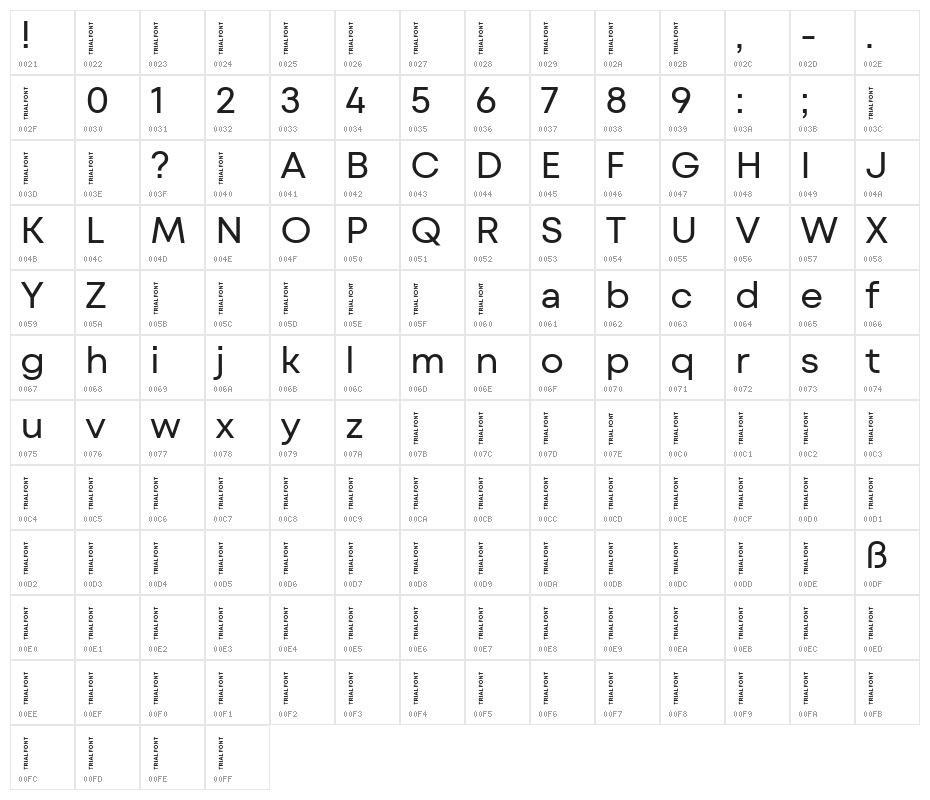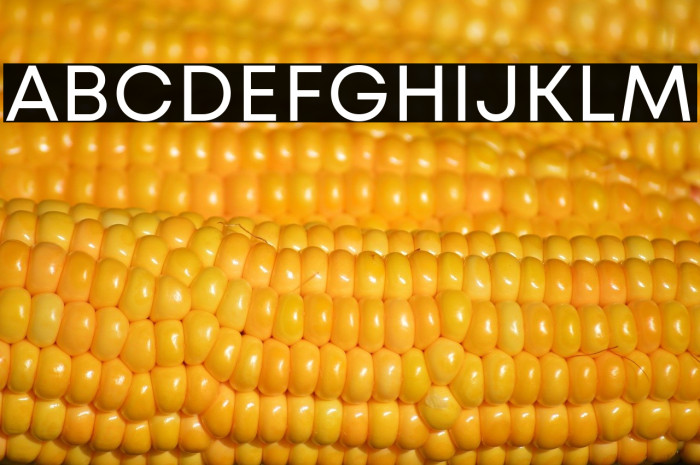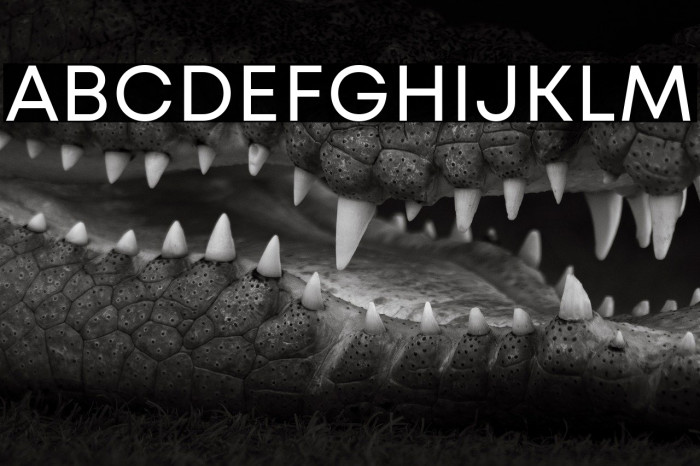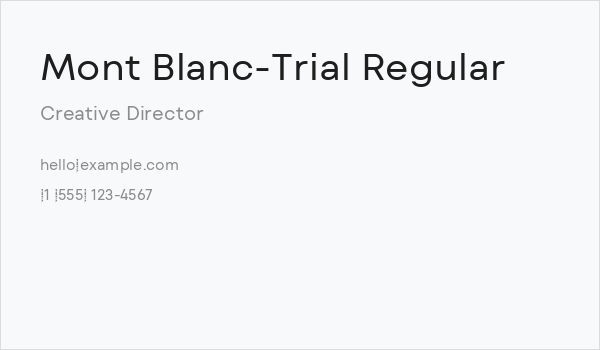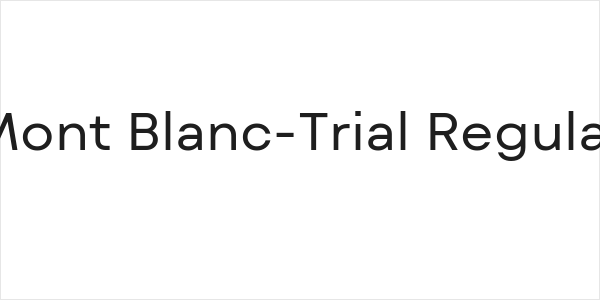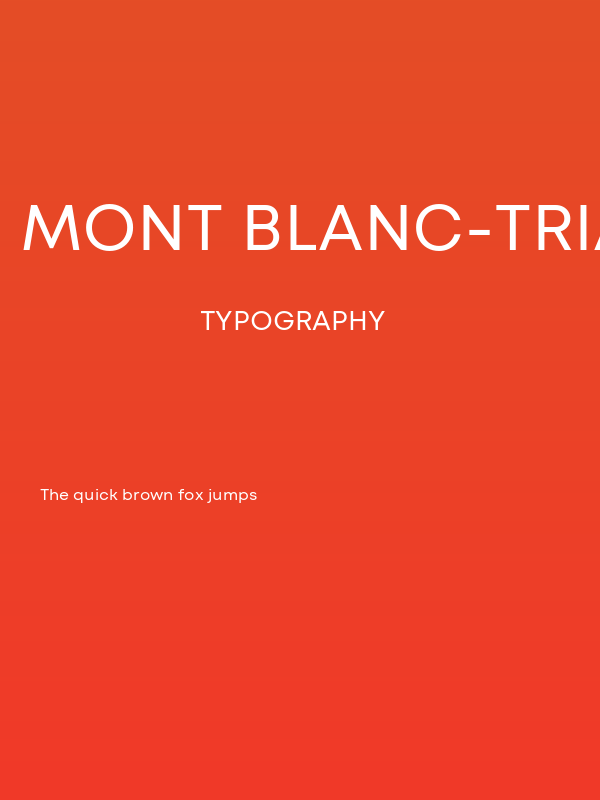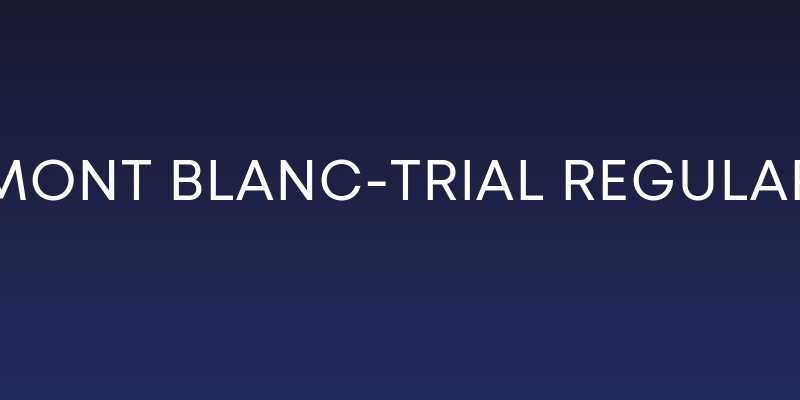
Mont Blanc-Trial Regular Font
Mont Blanc-Trial Regular Description
This font exhibits a clean and modern sans-serif style, characterized by its geometric shapes and uniform stroke widths. The uppercase and lowercase letters are well-proportioned, with a consistent height and width that enhances readability. The numerals are clear and distinct, making them suitable for both digital and print applications. The special characters are designed with simplicity in mind, maintaining the overall aesthetic of the font. This font's versatility makes it ideal for a wide range of design projects, from branding to web design.